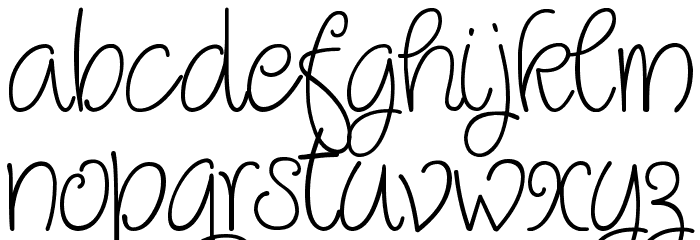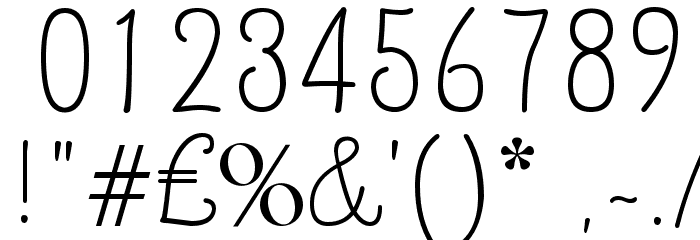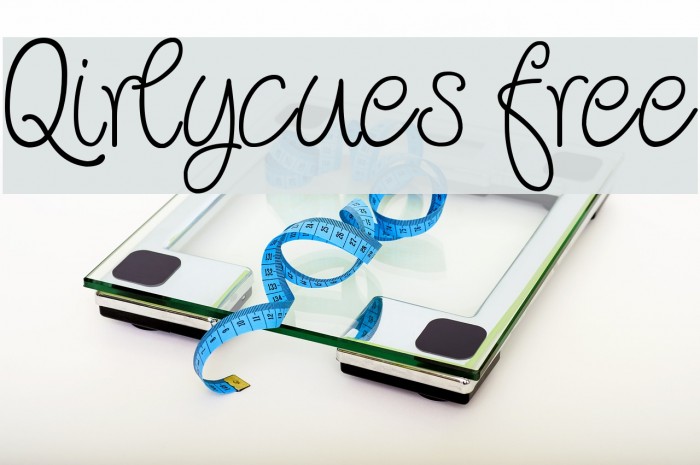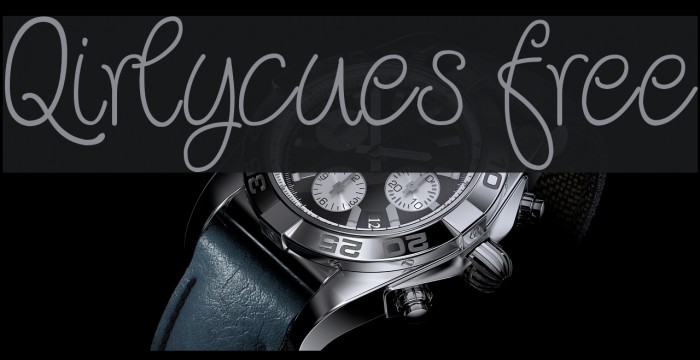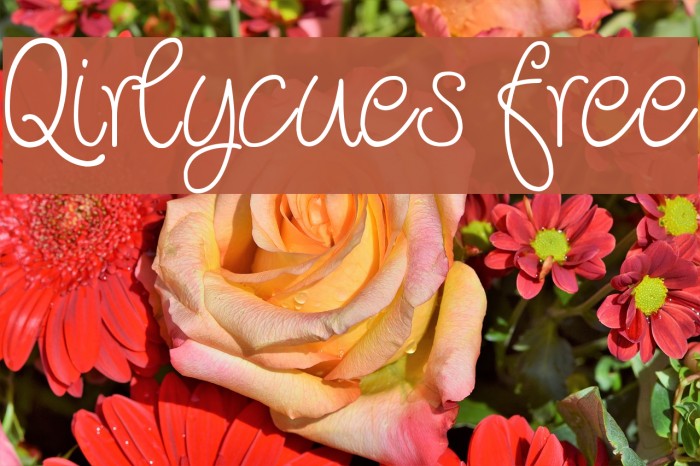
Qirlycues free Font
This font exhibits a playful and whimsical style, characterized by its curly and flowing letterforms. The uppercase and lowercase letters are designed with a consistent looped and swirled aesthetic, giving it a lively and dynamic appearance. The numerals and special characters maintain this playful theme, ensuring uniformity across all characters. The strokes are smooth and rounded, contributing to a friendly and approachable feel. This font is ideal for projects that require a touch of fun and creativity, such as children's books, invitations, or playful branding.
A playful, curly font with a whimsical and dynamic style.
- Proposed Projects: Ideal for children's books, playful invitations, creative branding, and decorative projects.
- Use Case: Headlines, Logos, Decorative text